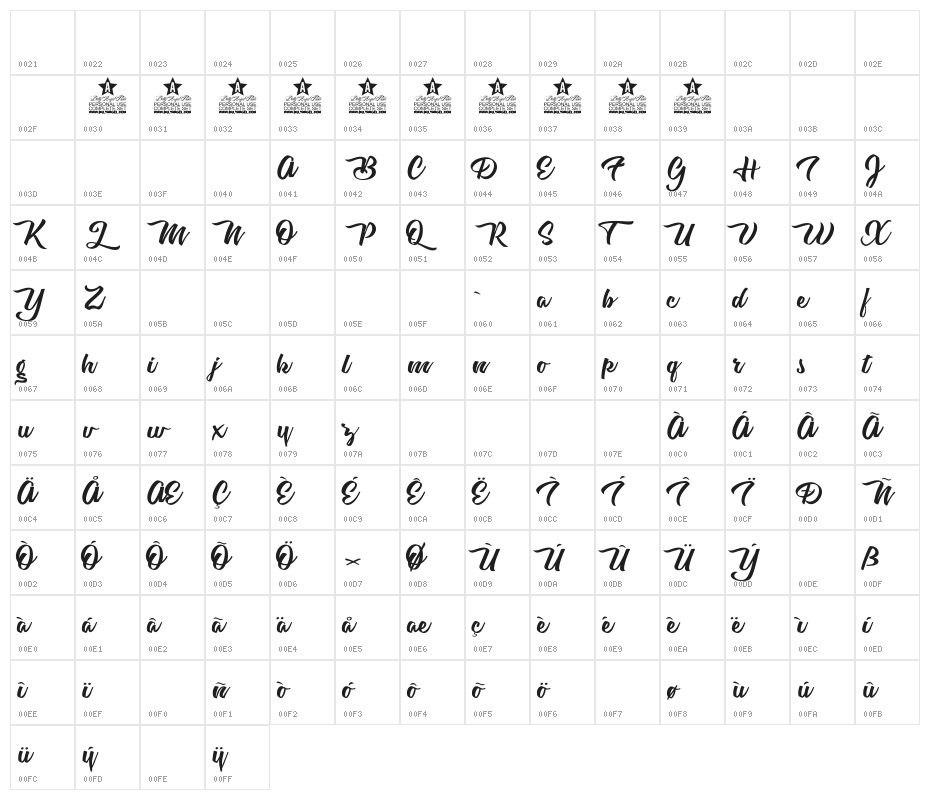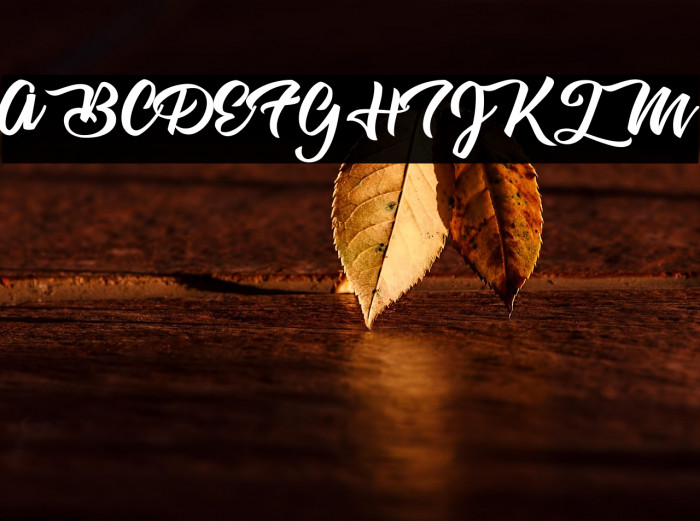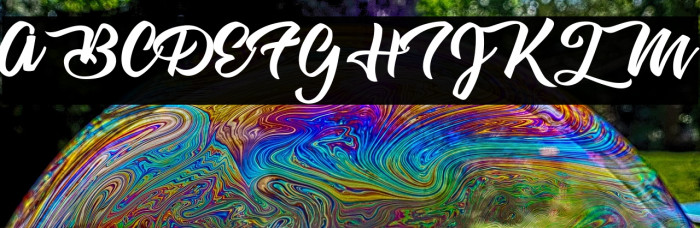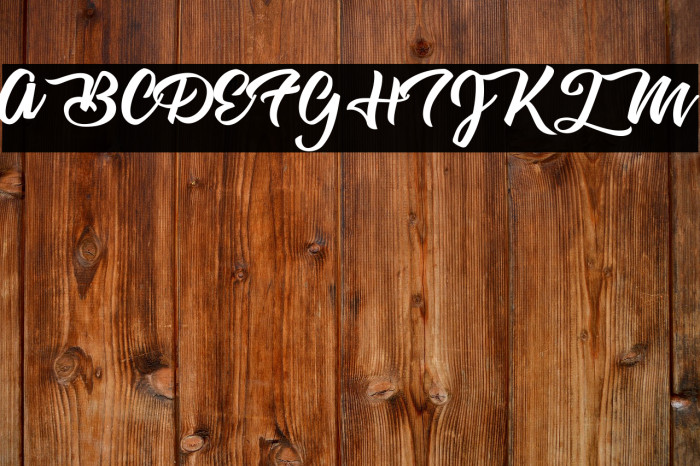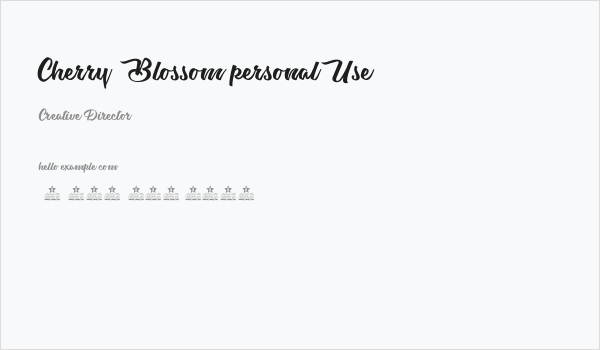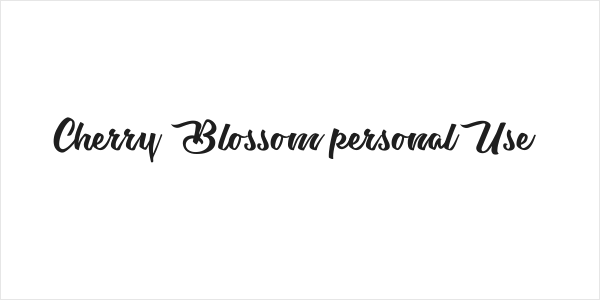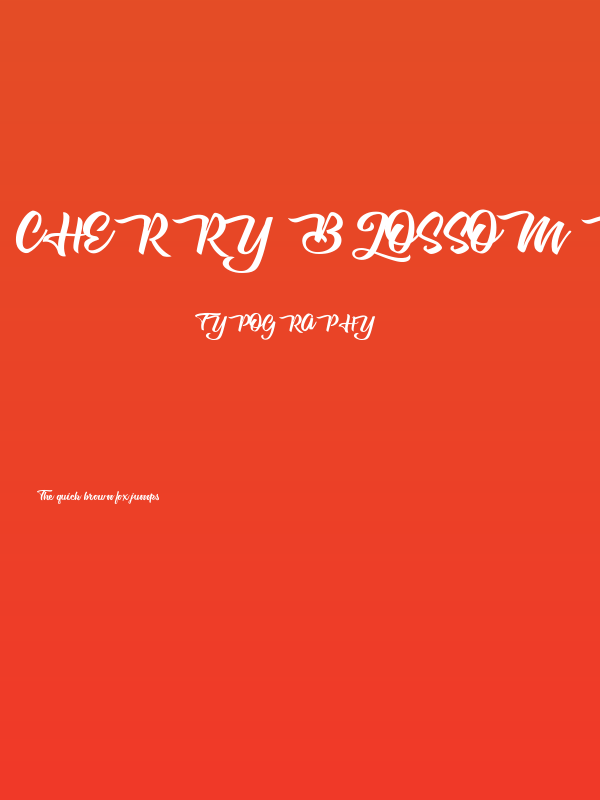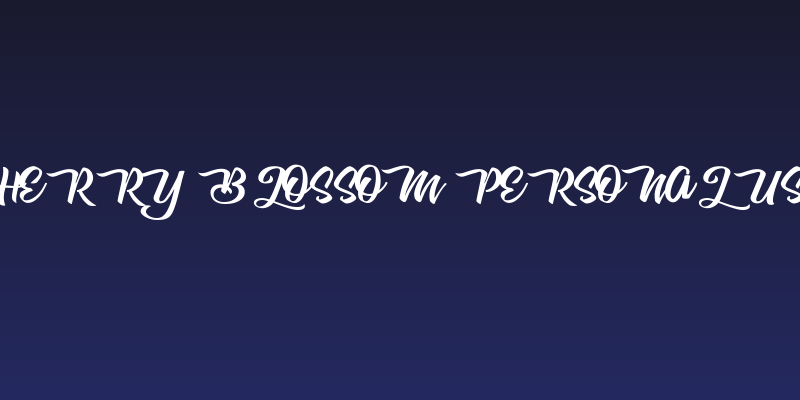
Cherry Blossom personal Use Font
Cherry Blossom personal Use Description
This font features a flowing, cursive style with a modern twist. The letters are interconnected, creating a seamless and elegant appearance. The uppercase characters are bold and expressive, while the lowercase letters maintain a consistent flow with subtle variations in stroke width. The overall design is both artistic and legible, making it suitable for creative projects. The font includes a full set of uppercase and lowercase letters, numbers, and a selection of special characters, all maintaining the same stylistic approach. The strokes are smooth and rounded, adding to the font's approachable and friendly feel.